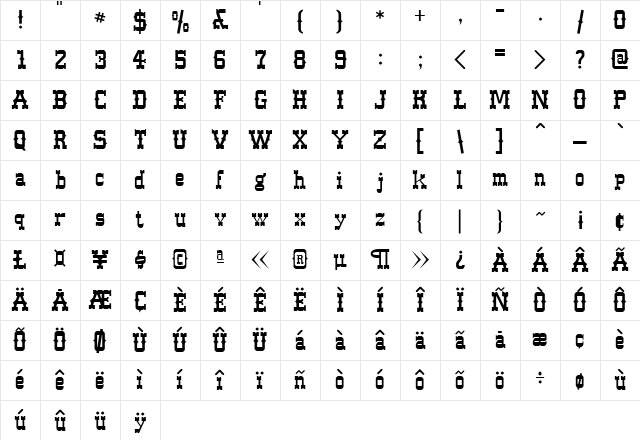
FZ JAZZY 61 Normal Free Font
FZ JAZZY 61 Normal
Design Context for FZ JAZZY 61
FZ JAZZY 61 is a composed and adaptable typeface that performs quietly and consistently across a wide range of design contexts.